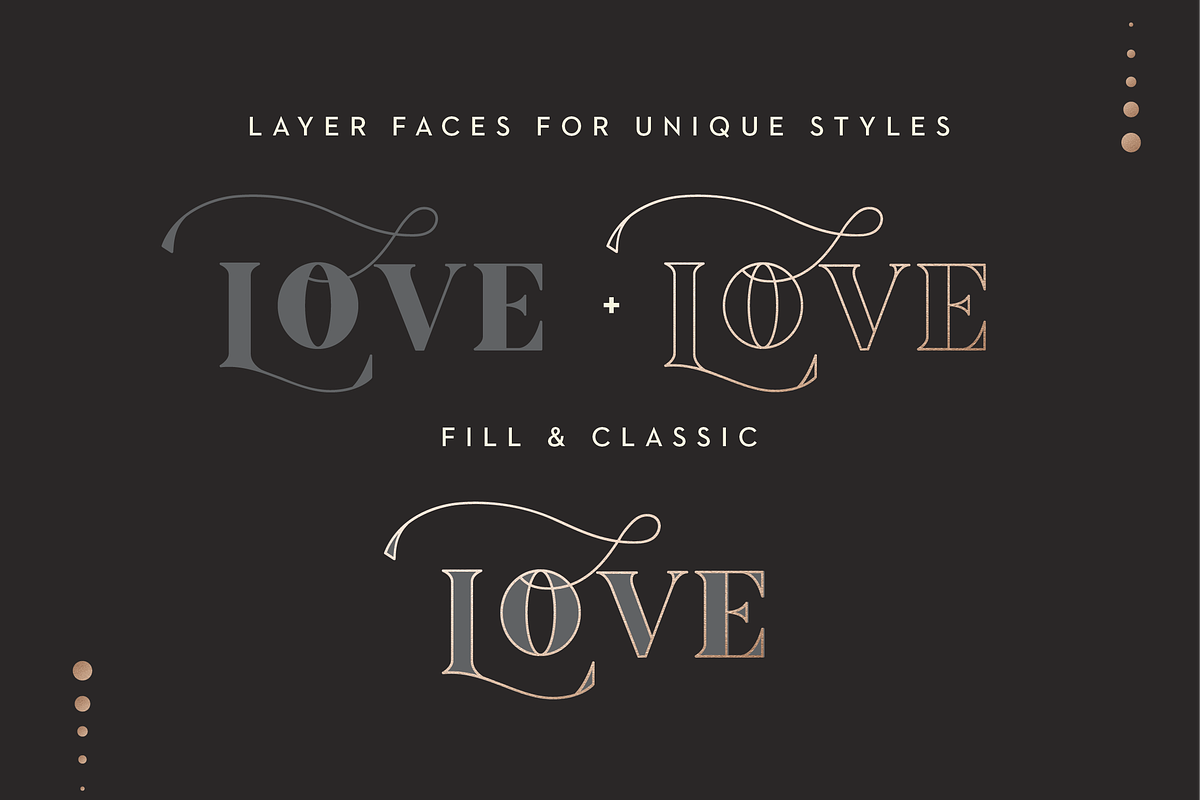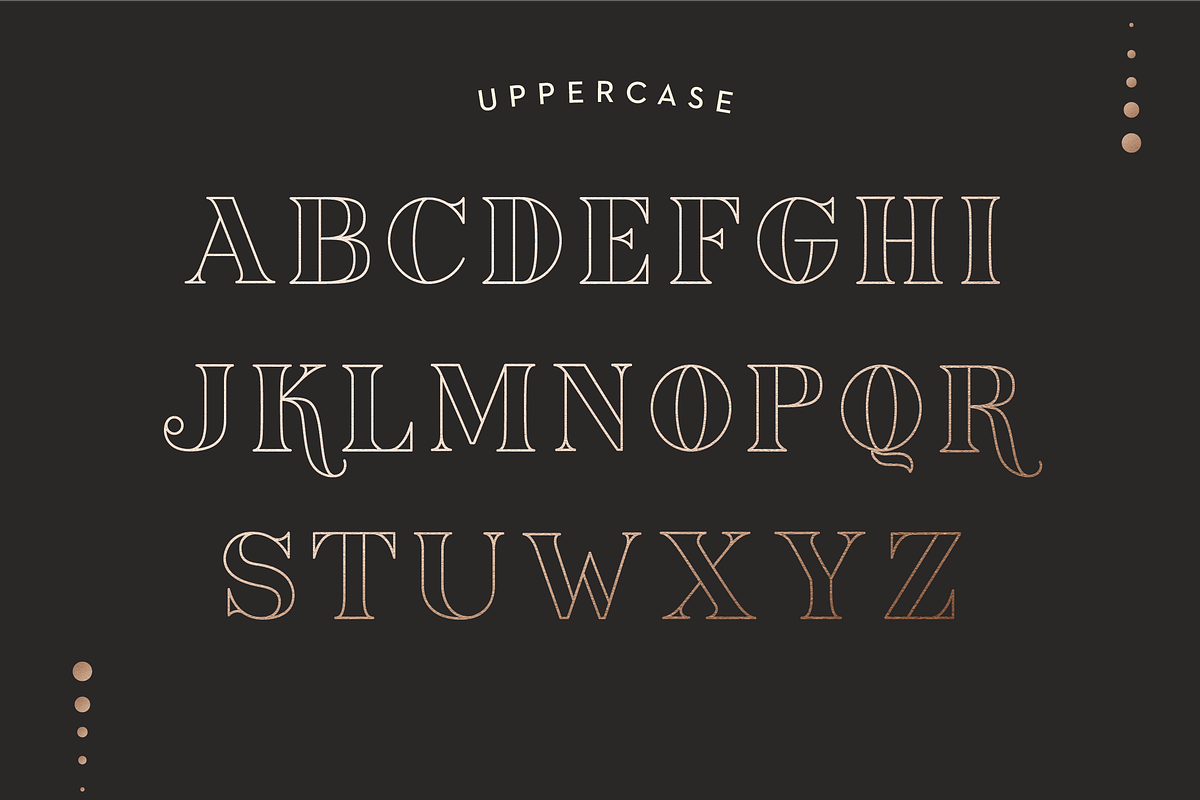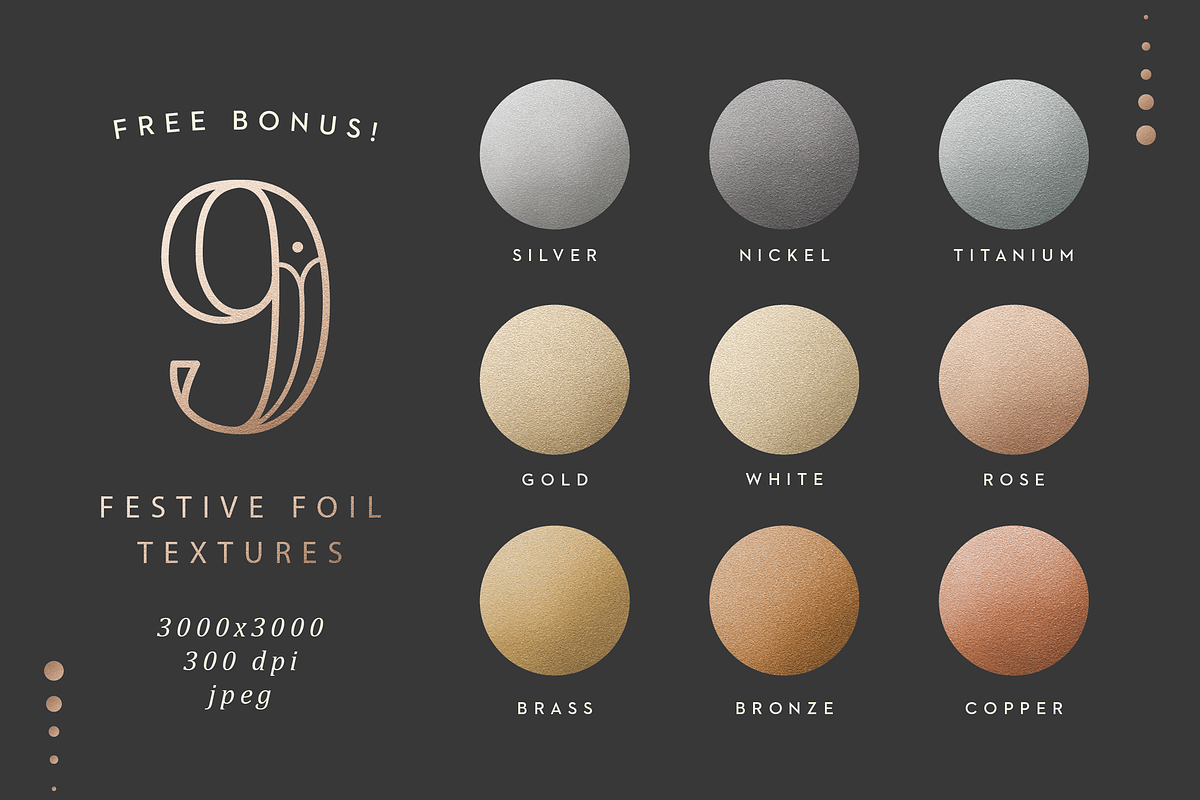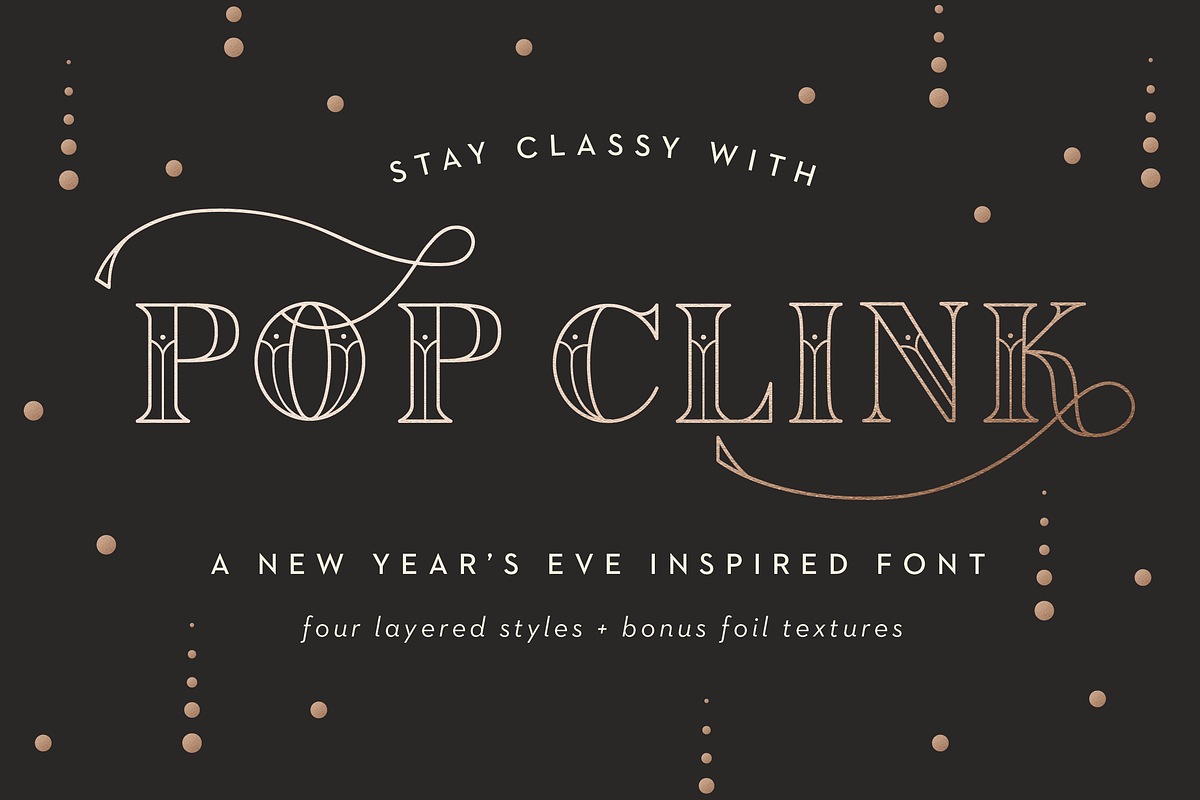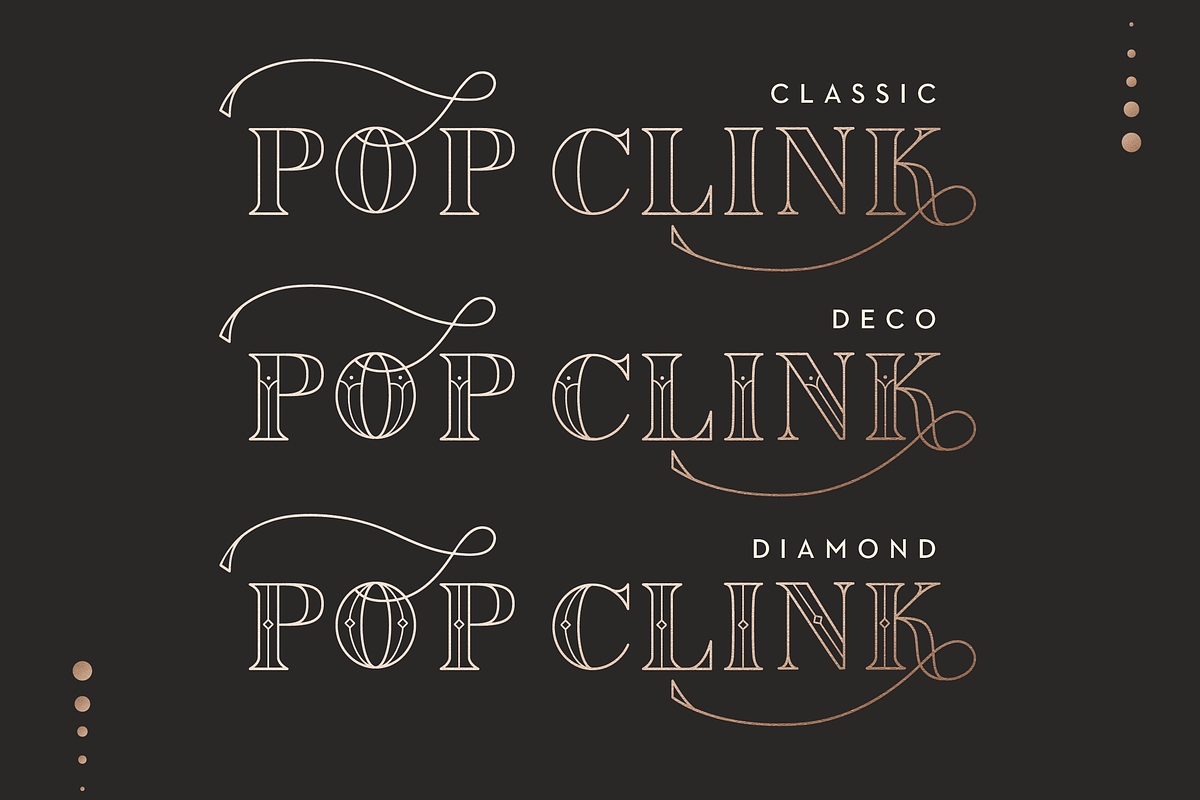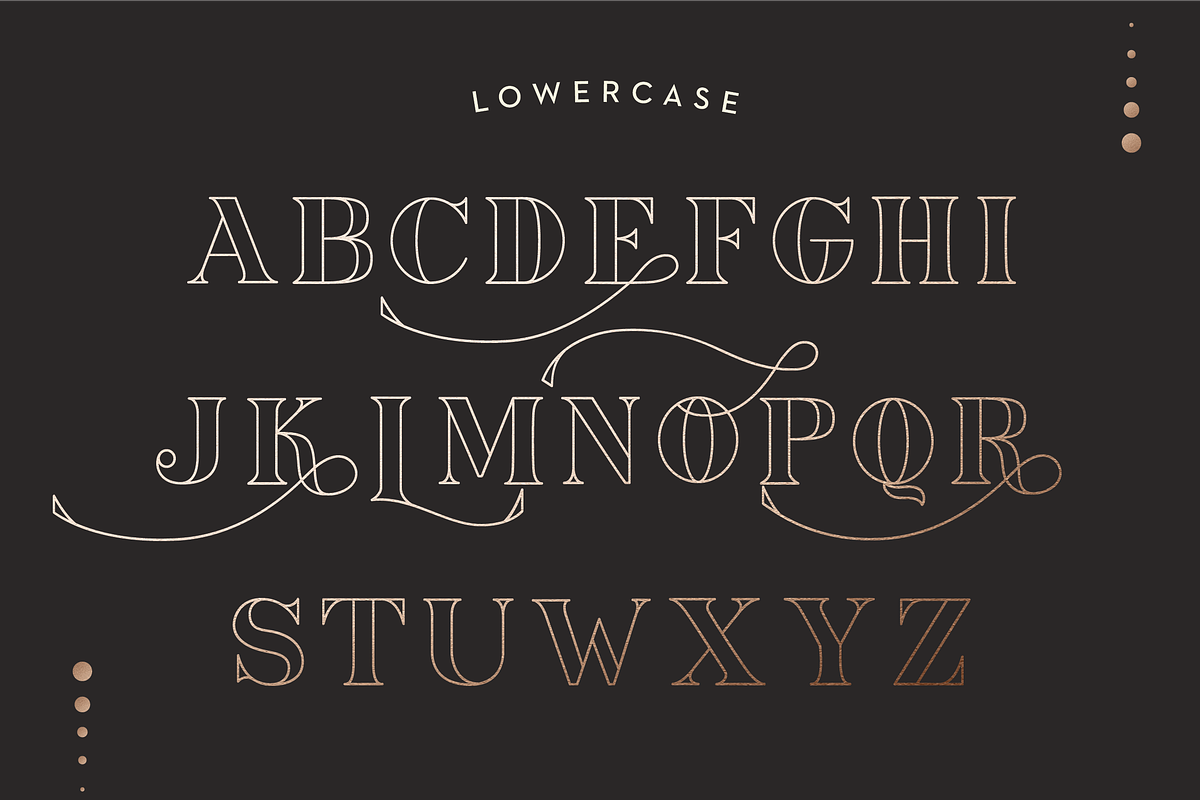
Pop Clink - A New Years Font
Break out the bubbly! Pop Clink is layered family that shines in foil and is perfect ringing in the New Year.
Pop Clink is suitable for holiday cards, wedding invitations, branding, stationery, blog design, custom art, custom stamps, custom embossers, or any design purpose.